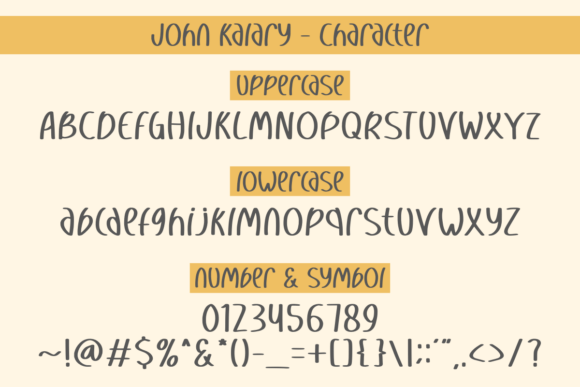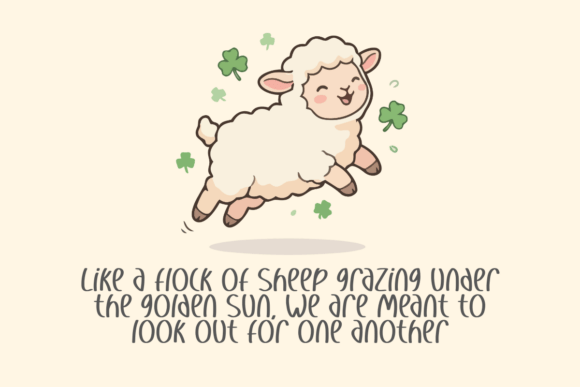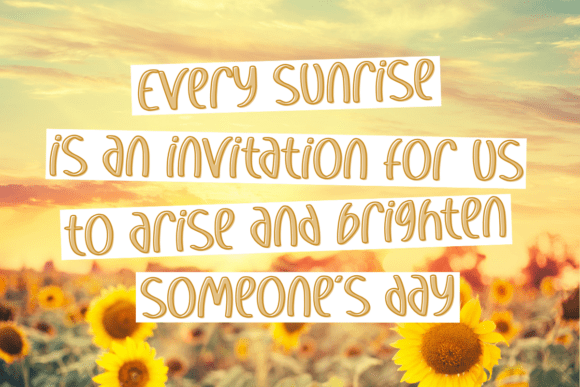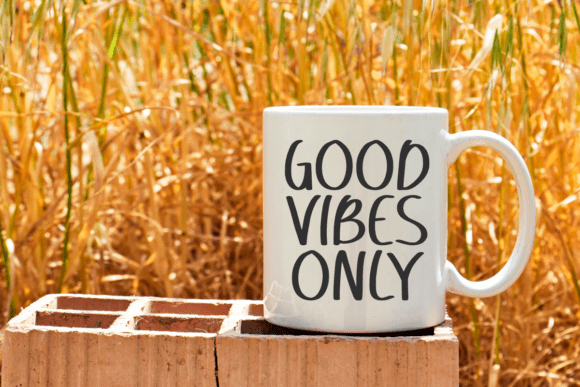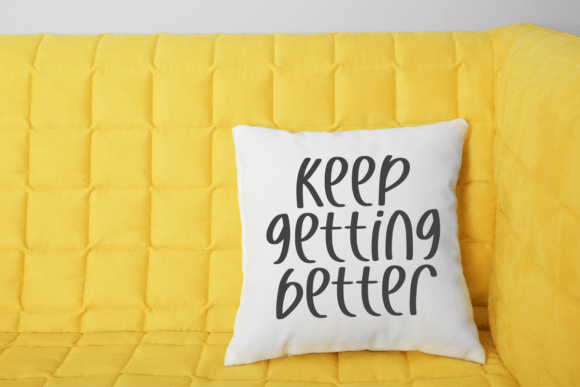
Introduction to John Kalary Font
Have you ever sat at your desk, surrounded by papers, markers, and half-finished projects, and suddenly, the perfect font idea pops into your head? That’s exactly what happened to many designers when they discovered the John Kalary Font. Its playful and aesthetic handwriting display design brings a sense of joy and personal warmth to all your creative projects.
What sets the John Kalary Font apart is its unique combination of clean, bouncy lines and a charming monolinear weight that radiates a friendly yet modern vibe. This makes it the perfect choice for designers looking to add a touch of handmade authenticity to their craft-based businesses, such as custom acrylic keychains, vinyl stickers, and nursery decor.
Whether you’re working on a creative project, designing a transparent background for a social media post, or searching for a high-quality font to use in your free download resources, the John Kalary Font is a valuable design resource that’s sure to bring a smile to your face and a touch of personality to your work.
Key Features of John Kalary Font
- High-quality font design for creative projects, offering a unique and elegant touch.
- Features a transparent background, allowing for seamless integration with any design or image.
- Designed at a high resolution (300 DPI), ensuring crisp and clear text display, even in large formats.
- Available in a range of sizes, from 12 to 72 points, catering to various design needs and applications.
- Perfect for use in graphic design, digital art, and other creative endeavors where a high-quality font is essential.
Honest Review: John Kalary Font
I recently had the chance to work with the John Kalary Font on a creative project, and I must say, it was a great experience. The font has a clean and modern design that made it perfect for my project’s aesthetic.
Overall, I’m really impressed with the John Kalary Font. It’s a great resource for designers who need a high-quality font for their projects. The transparent background and clean design make it perfect for a variety of uses. I would definitely recommend it to anyone looking for a free and reliable font.
- High-quality and crisp lines
- Easy to use and customize
Tips for Getting the Most Out of John Kalary Font
Experiment with different font sizes, colors, and styles to create visually appealing designs. Use John Kalary Font in combination with other design elements to create a cohesive look. Consider using a transparent background to overlay text on images or graphics.
John Kalary Font is ideal for designing logos, business cards, and brochures. It’s also perfect for creating social media graphics, presentations, and documents. With its high-quality design and free download option, it’s an excellent resource for any creative project.